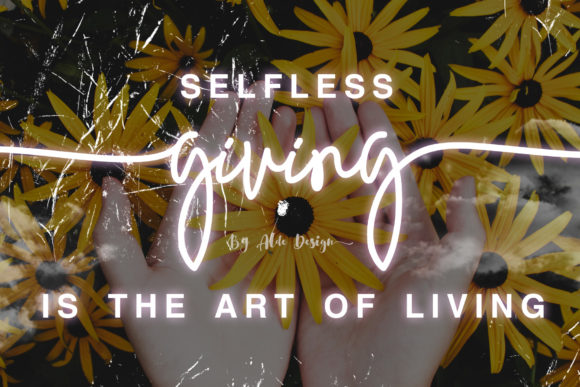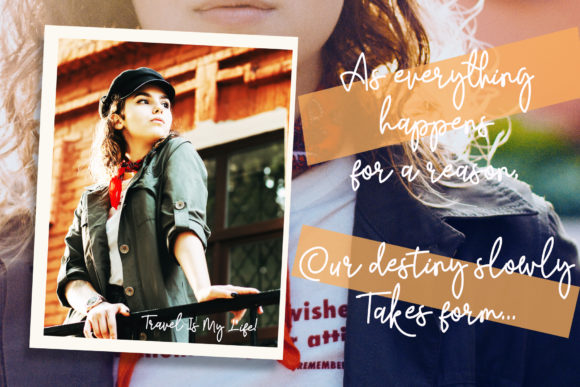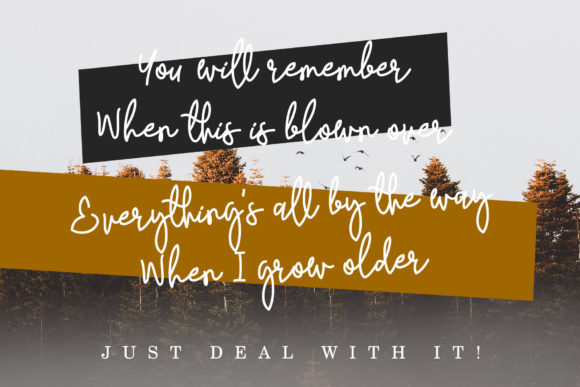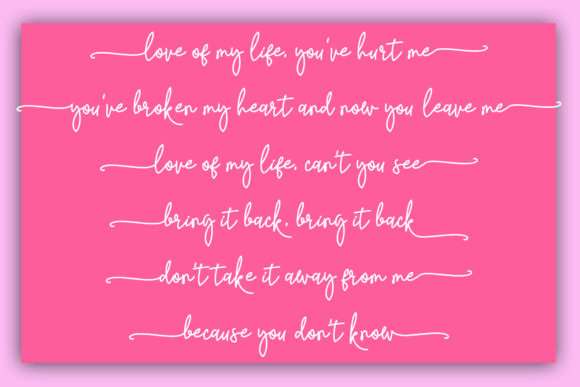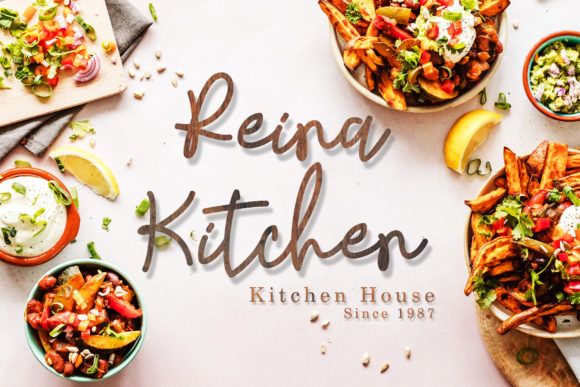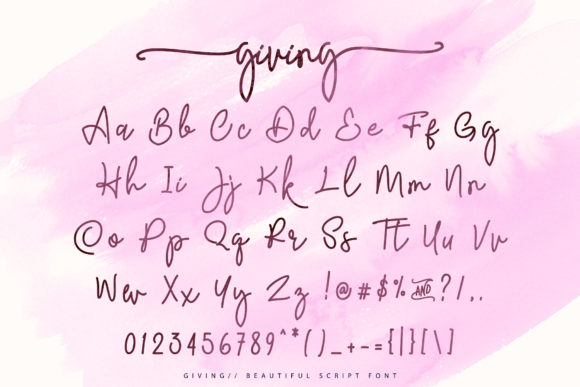
Giving Script Font
About Giving Script Font
Giving is a great crafting font with a fancy and classy vibe. It has a natural, yet elegant touch and is absolutely easy to use.